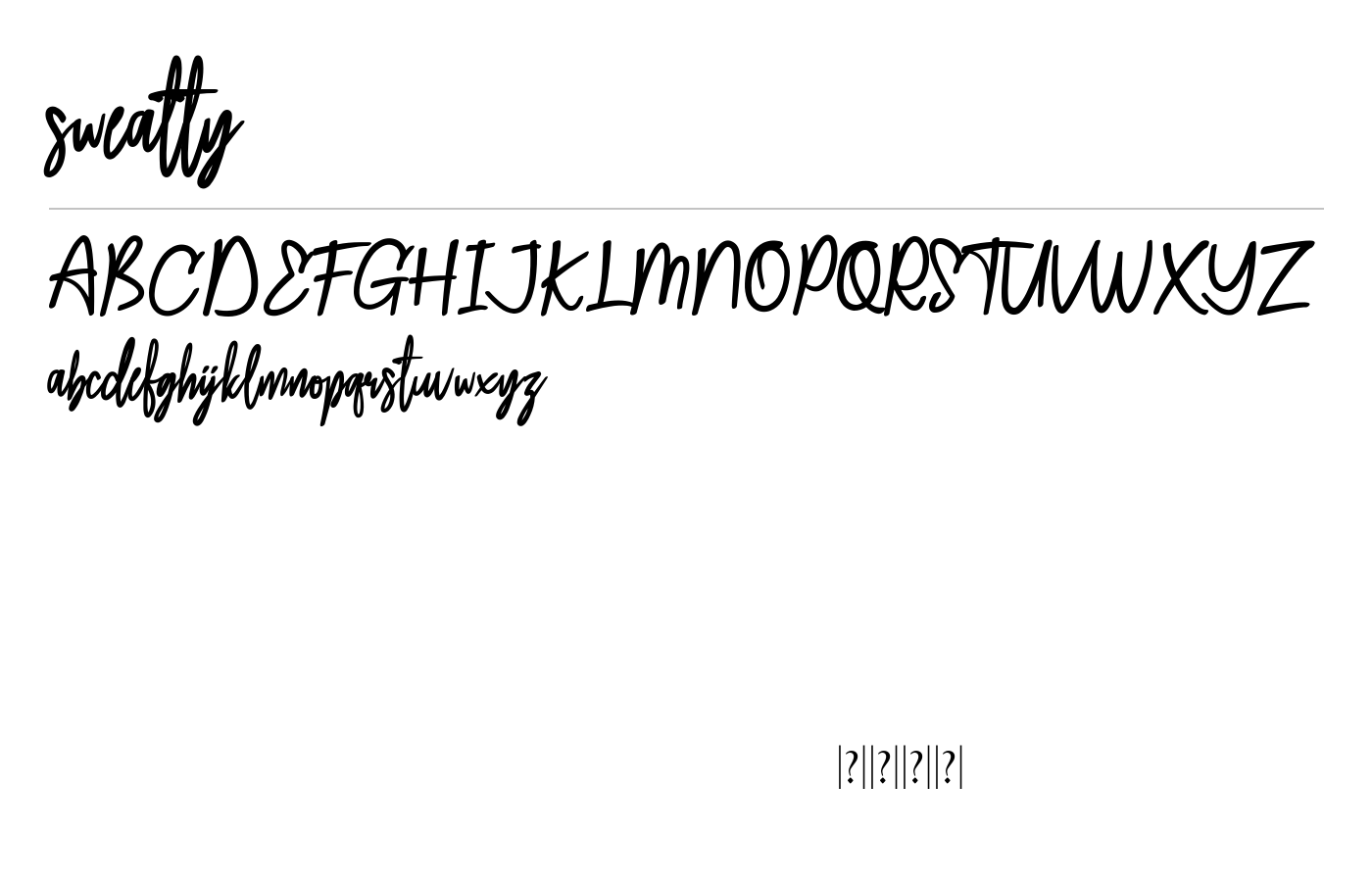
Sweatty Font is a playful and casual script typeface with a hand-drawn feel that combines energetic uppercase letters with a more compact and lively lowercase set. Its thin, slightly irregular strokes and quirky letterforms give it a friendly, approachable vibe, making it ideal for creative branding, informal invitations, and trendy packaging where personality and warmth are key. This font works best in display settings where its distinct style can shine and add charm to any project.
Sweatty Font
About Sweatty Font
| Font family | Sweatty Font |
| Designer | Jani Nurman |